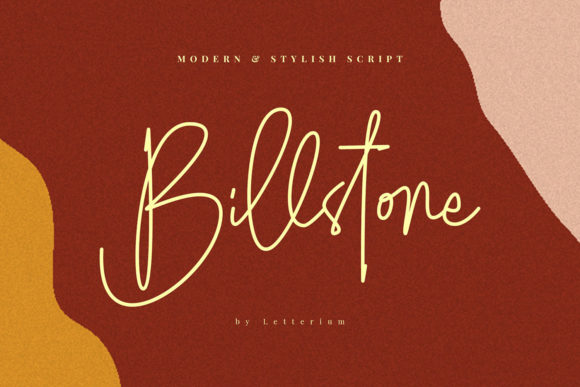
Prepare to be mesmerized by Billstone Script - an exquisite handwritten masterpiece that will elevate your designs to breathtaking heights. Crafted with meticulous precision, each stroke of this font exudes an aura of elegance and sophistication. Whether you're a seasoned calligraphy artist or a novice seeking to add a touch of magic to your creations, Billstone will effortlessly captivate your audience.
Step into a world of boundless possibilities, where Billstone's graceful curves and sweeping flourishes will transform your wedding invitations into timeless keepsakes. Let the ink dance across the page, creating a love letter that whispers the story of your special day. With every graceful stroke, you'll weave a tapestry of emotions, capturing the essence of your love in a way that transcends time.
But Billstone's allure extends far beyond the realm of matrimonial bliss. Its versatility knows no bounds, lending an air of sophistication to any creative endeavor. Picture your social media posts adorned with Billstone's enchanting charm, captivating your followers with a captivating fusion of style and substance. Let your greeting cards blossom with heartfelt messages, penned with the delicate touch of Billstone's artistry.
Unleash your inner artist and let Billstone guide your hand as you create breathtaking stationary art. Its elegant strokes will breathe life into your creations, transforming ordinary paper into canvases of timeless beauty. Whether you're crafting personalized notecards or designing invitations for life's most precious moments, Billstone will add a touch of wonder to every piece.
As the sun sets on another day, allow Billstone to illuminate your creative endeavors. Its radiant glow will cast a spell upon your designs, leaving an unforgettable impression on all who behold them. Prepare to be captivated by the timeless beauty of Billstone Script, a font that will ignite your imagination and leave an enduring legacy in the hearts of those you touch.